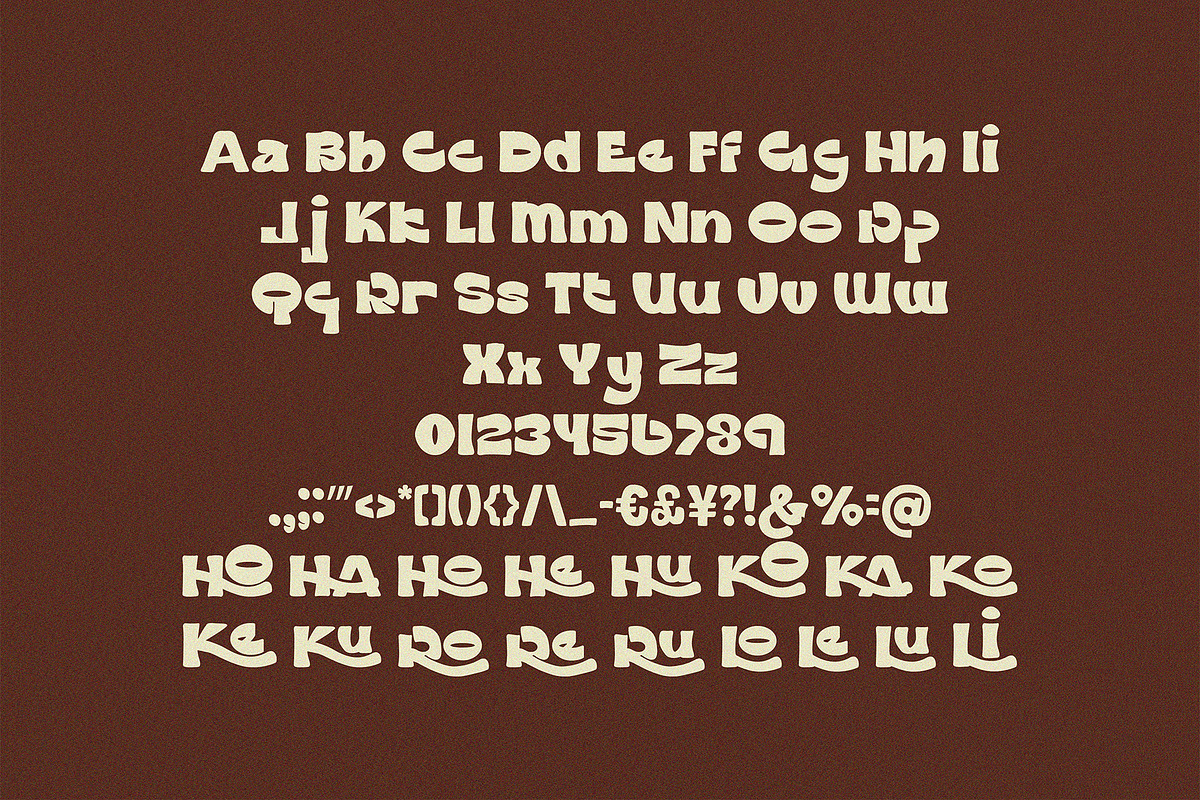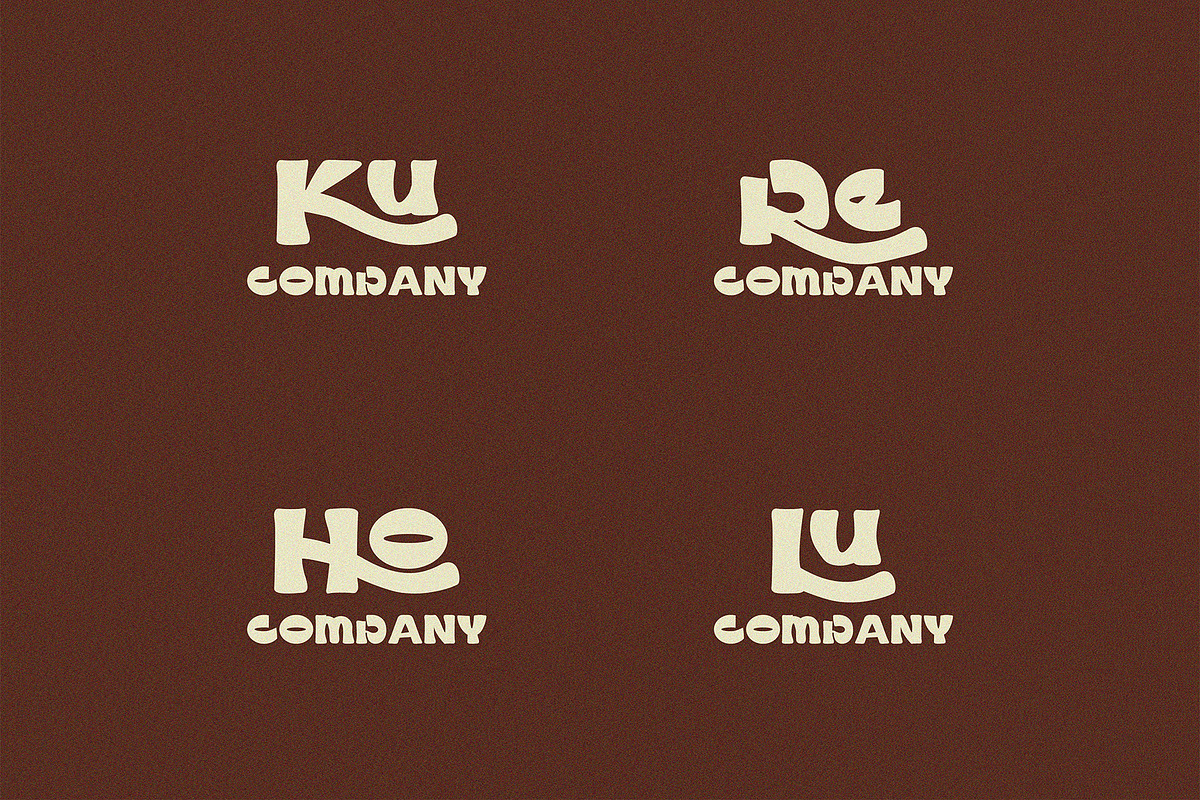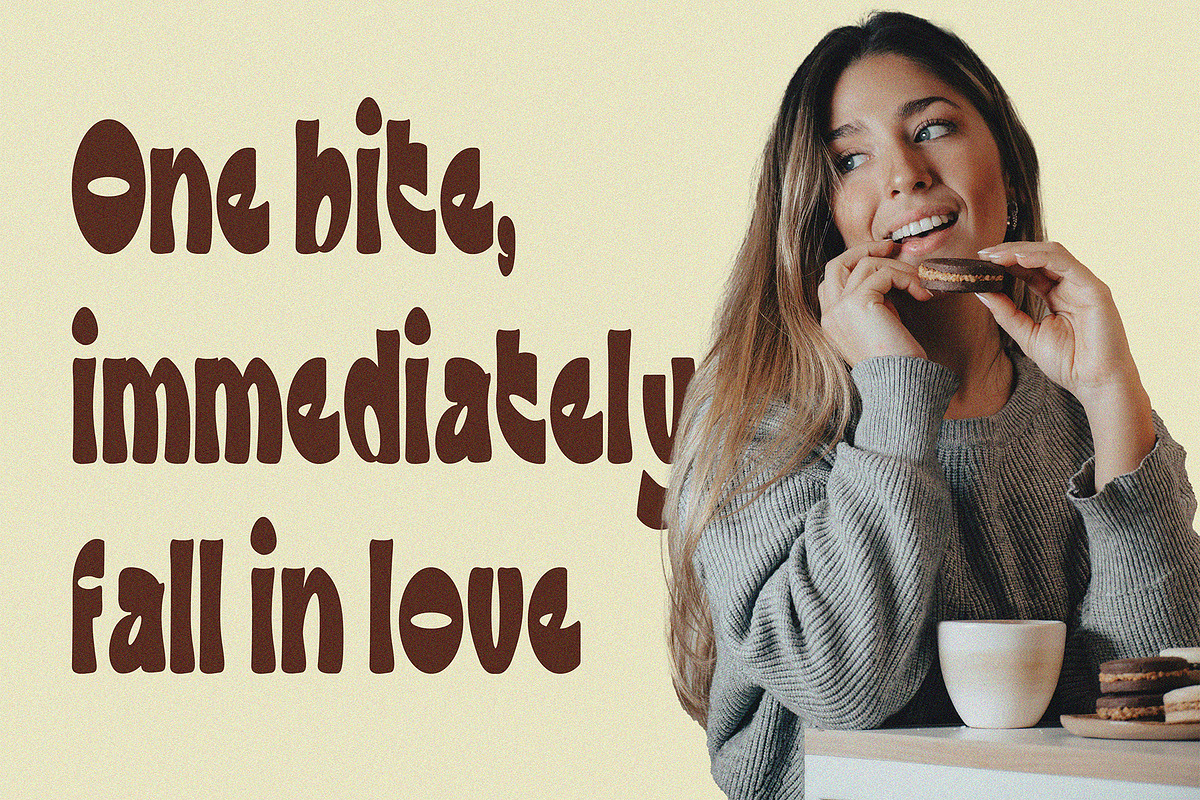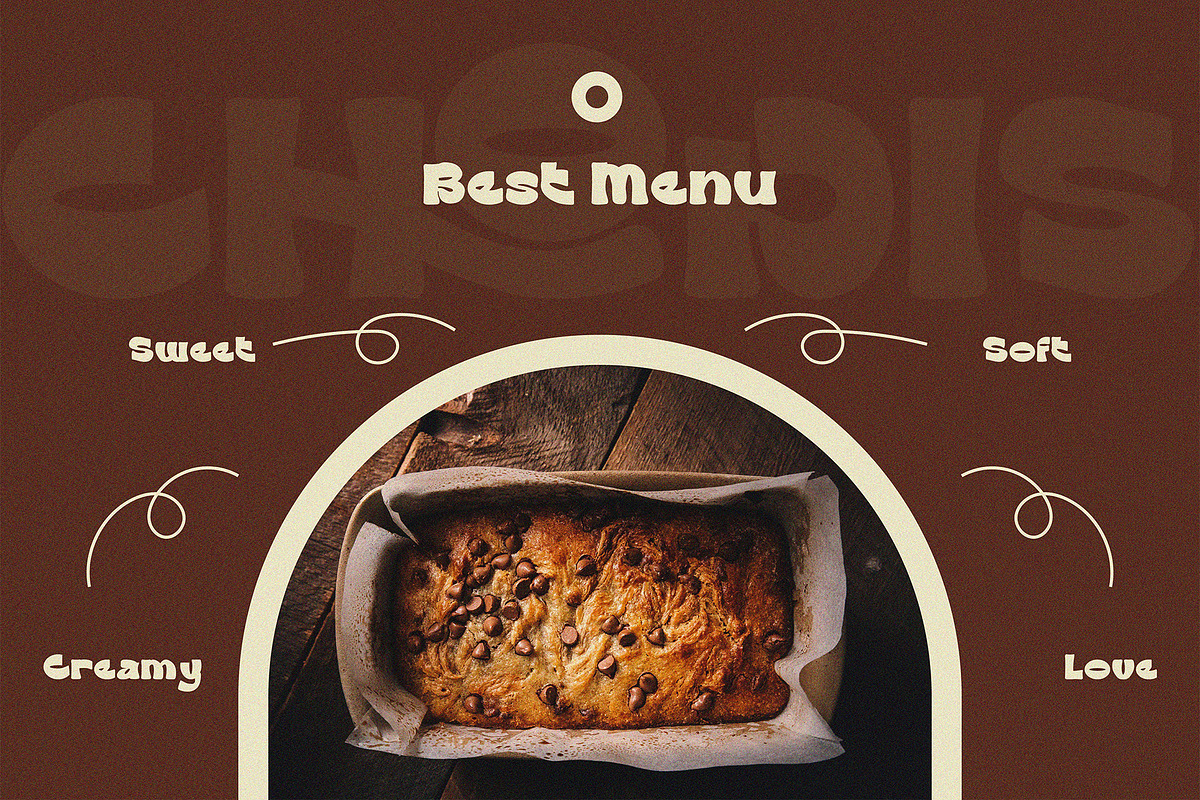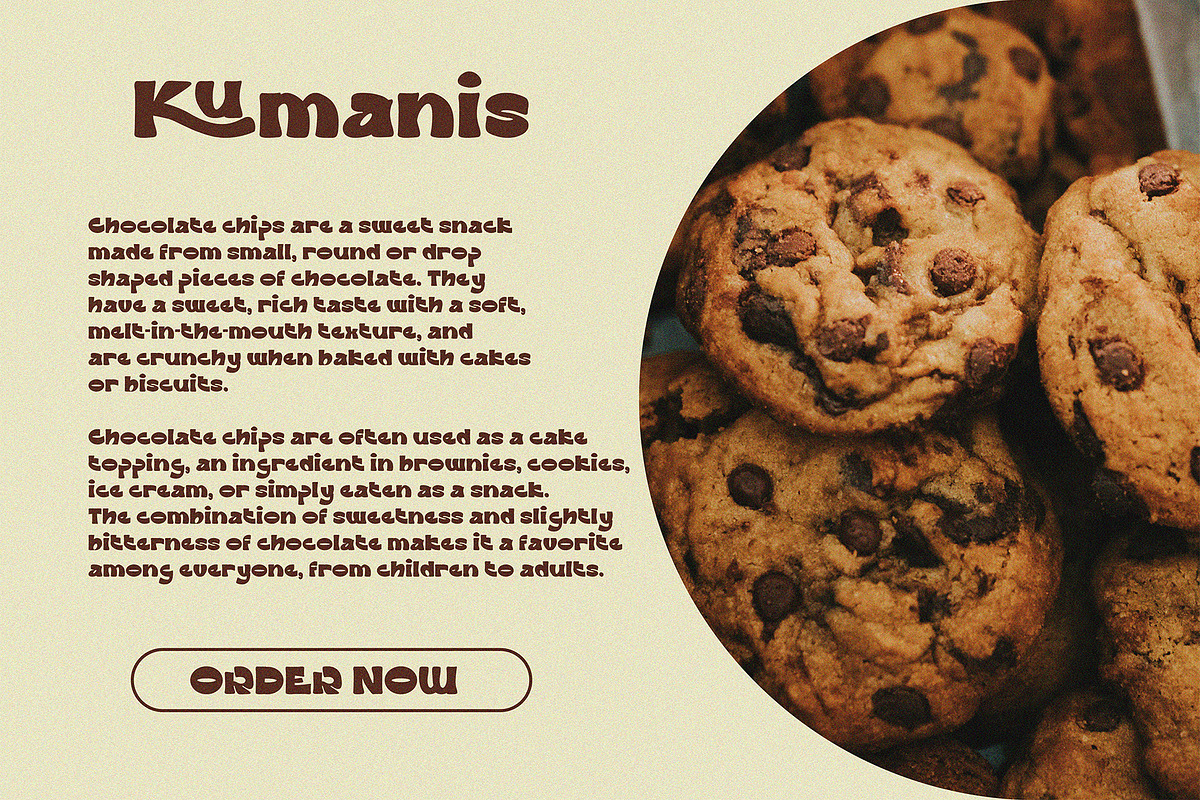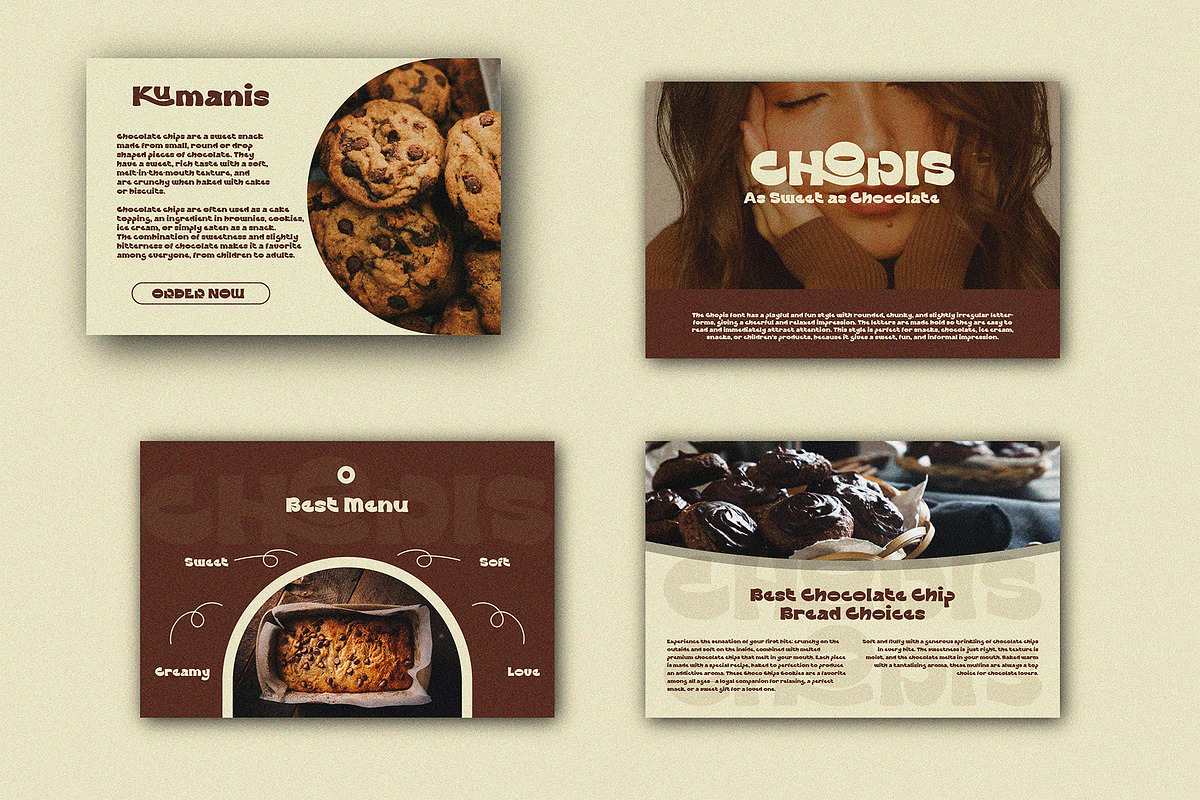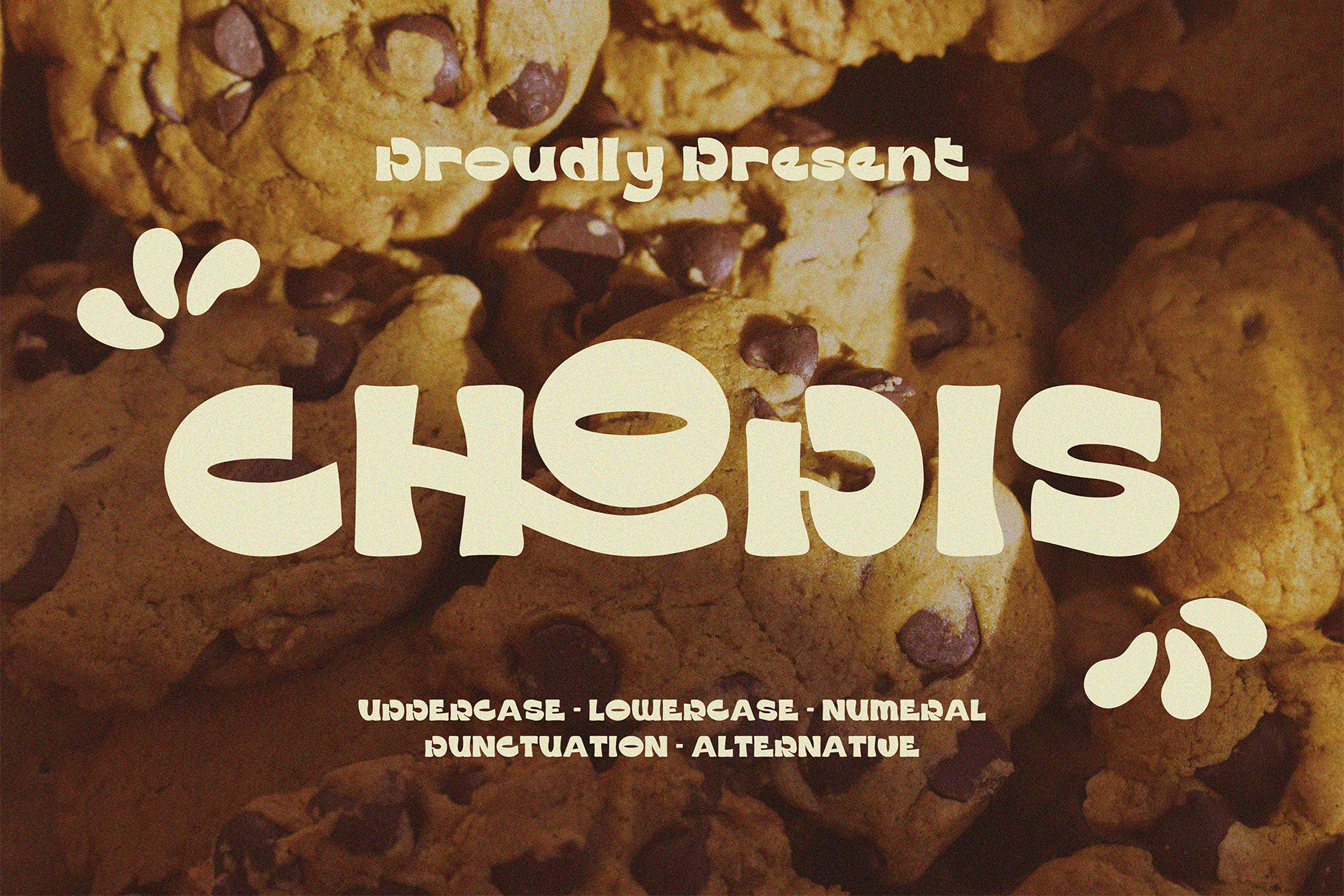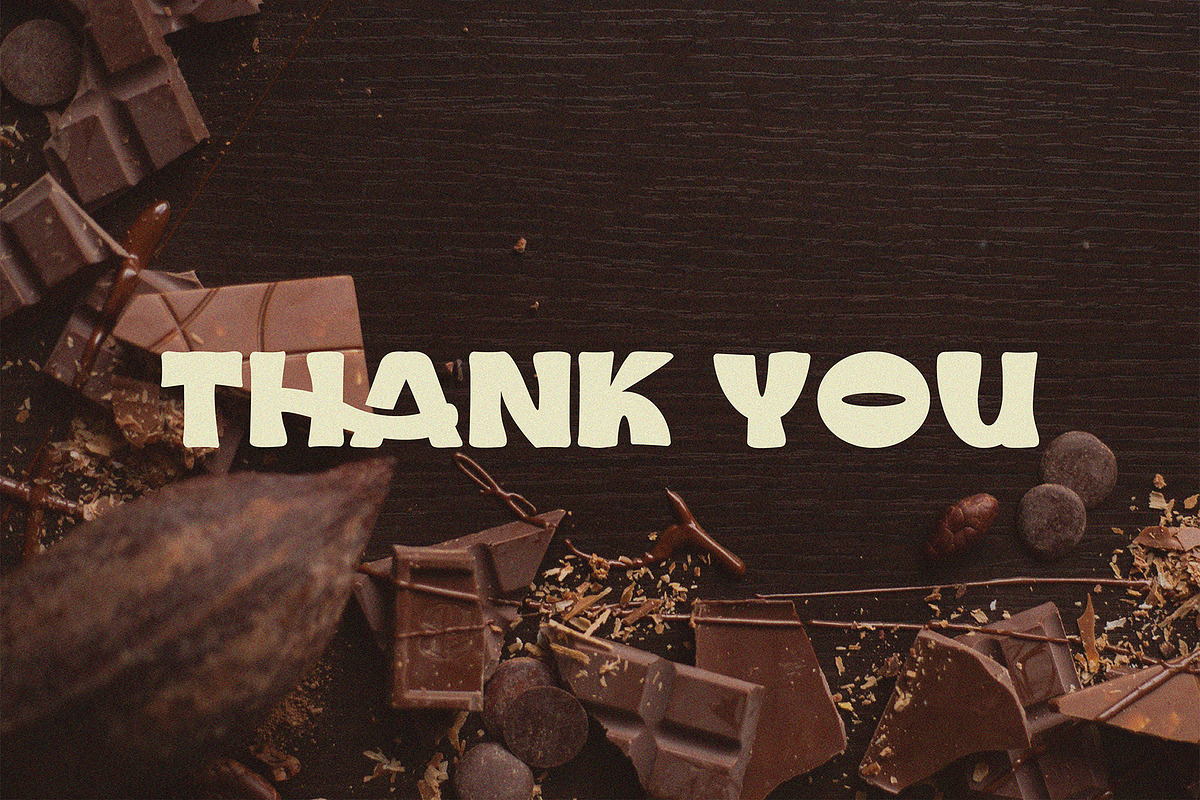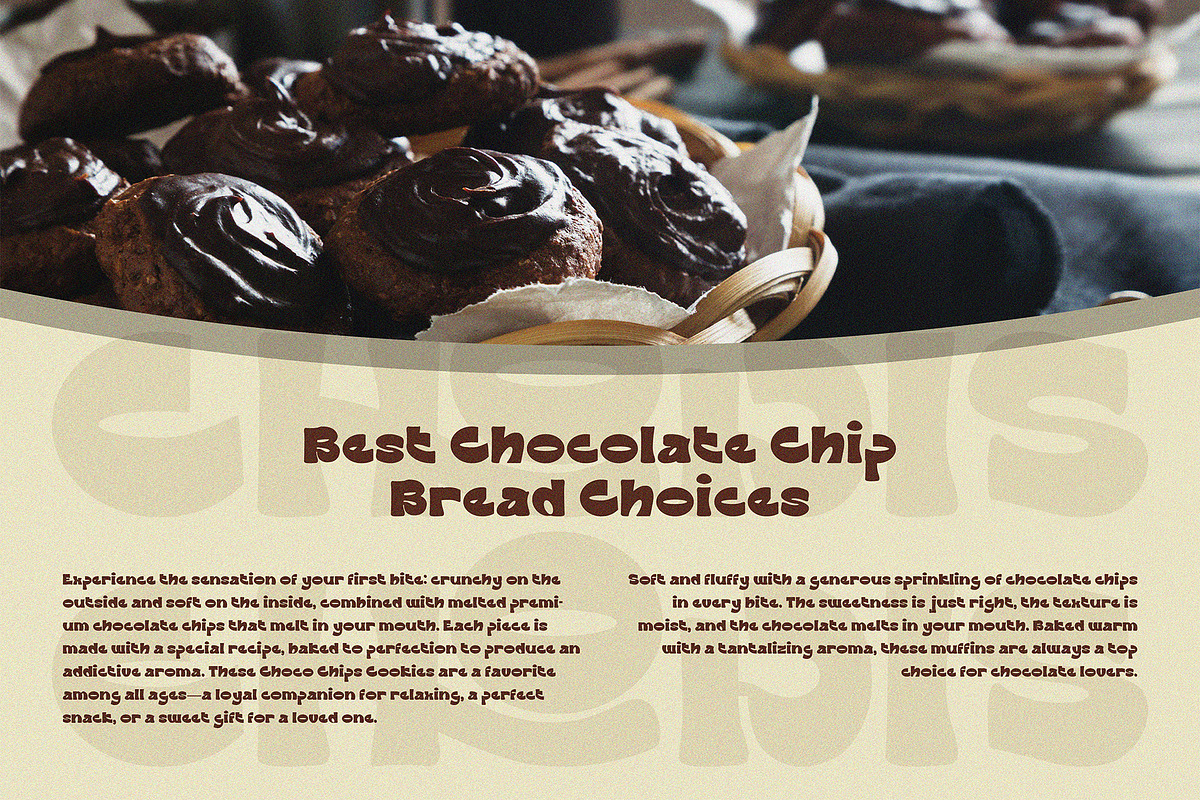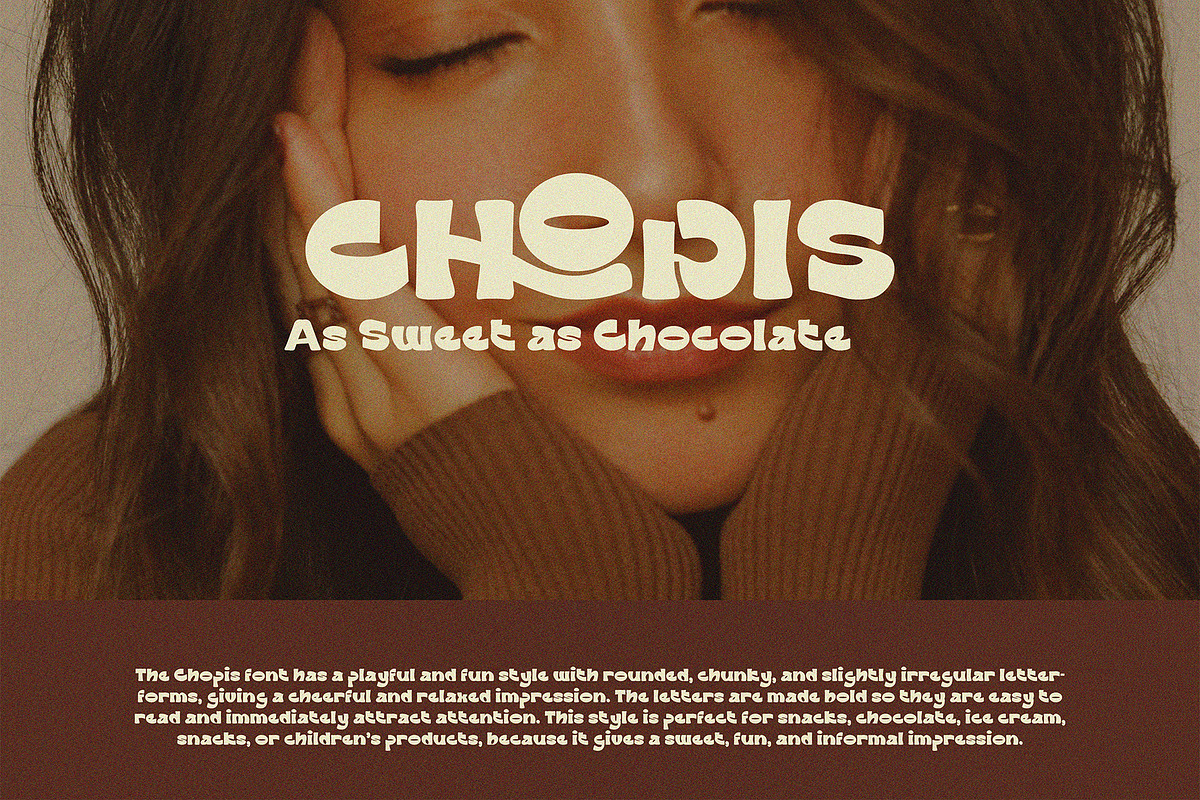
Chopis - Food Font
The Chopis font has a playful and fun style with rounded, chunky, and slightly irregular letterforms, giving a cheerful and relaxed impression. The letters are made bold so they are easy to read and immediately attract attention. This style is perfect for snacks, chocolate, ice cream, snacks, or children's products, because it gives a sweet, fun, and informal impression.